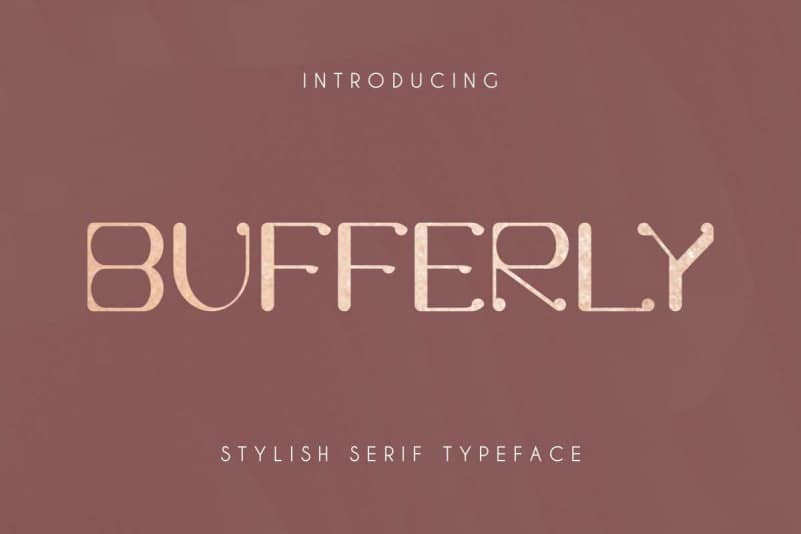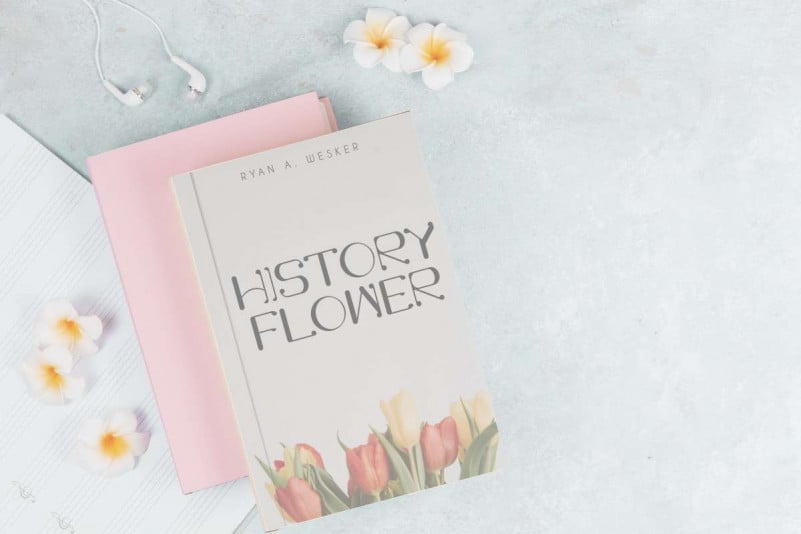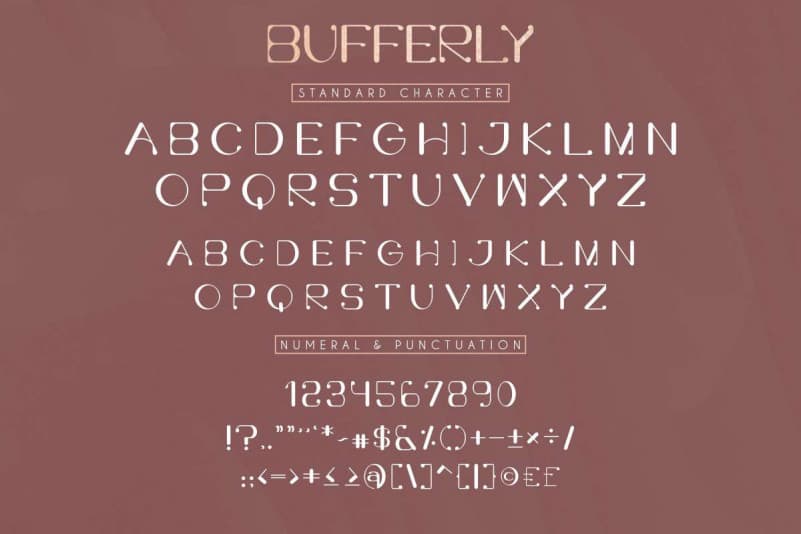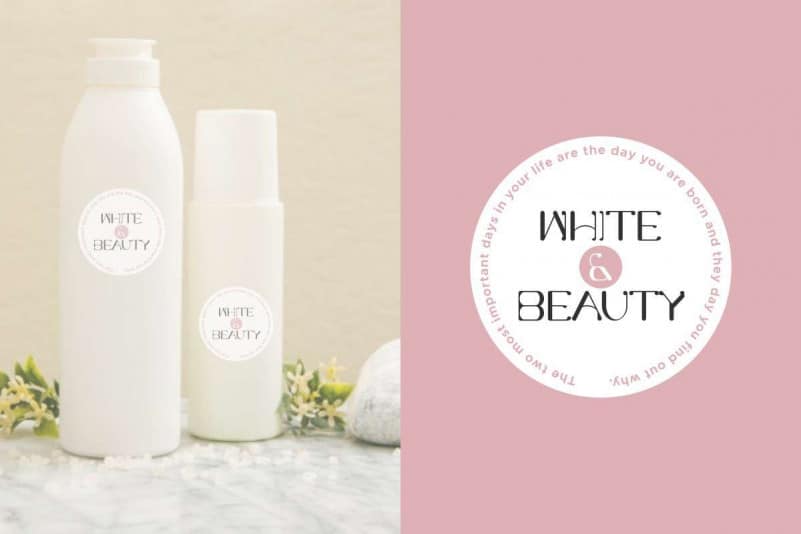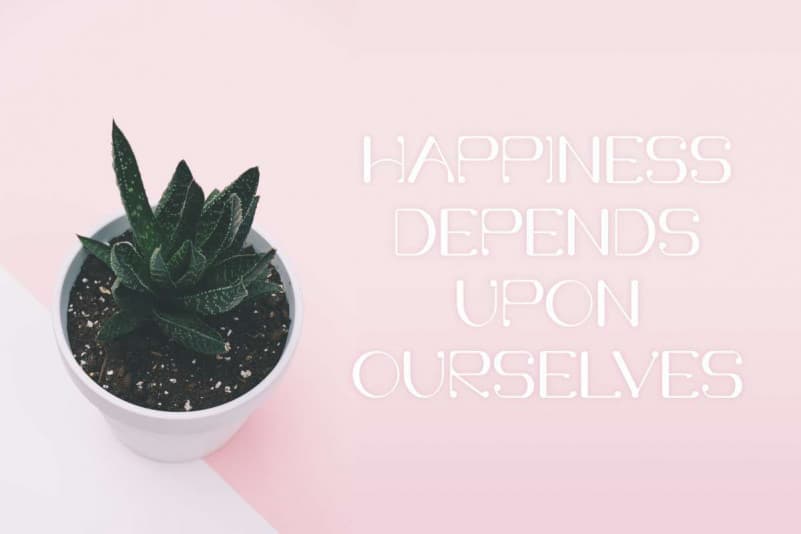
Bufferly Serif Font
Bufferly Serif Font is an display font. This font has a stunning characters set, perfectly managed with well spaced and kerning. The theme style of this font will modern, tech, casual, gold, vintage, stylish and sophisticated.
Bufferly Serif Font will be great for any projects including : branding, logo, stationery, business card, signage, flyer, brochure etc.